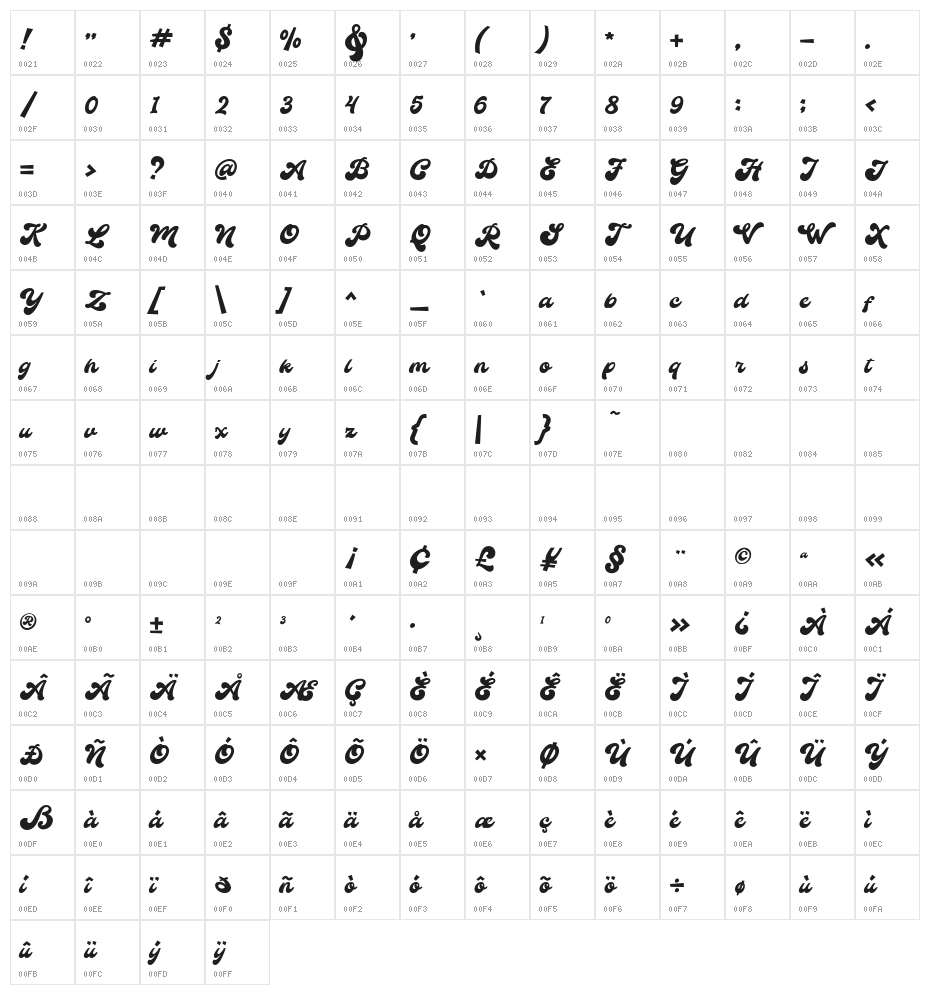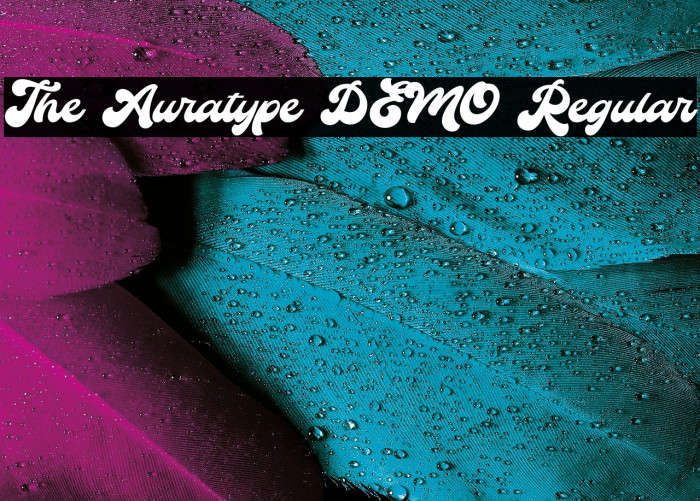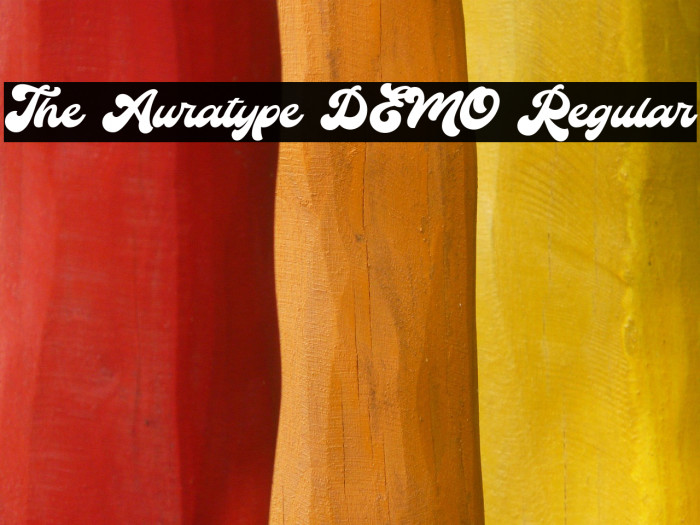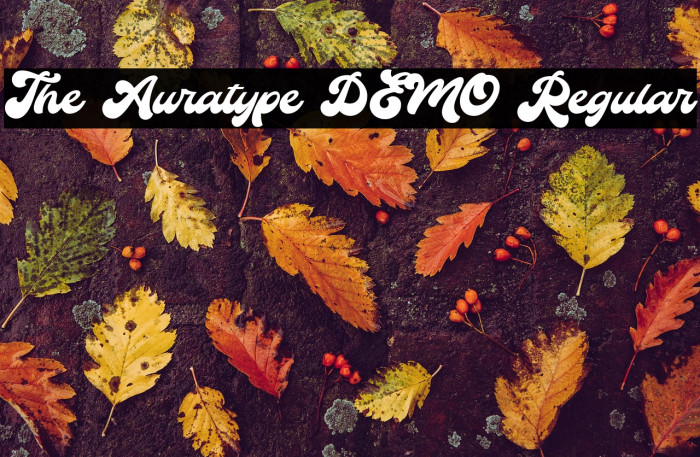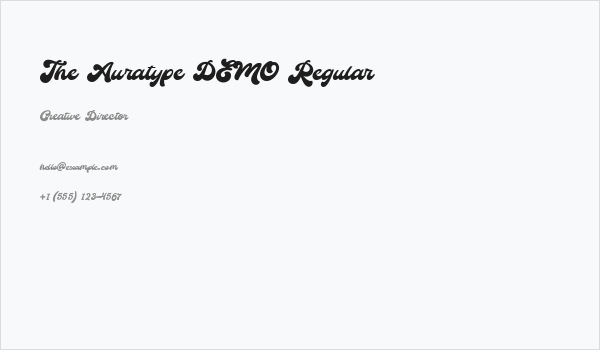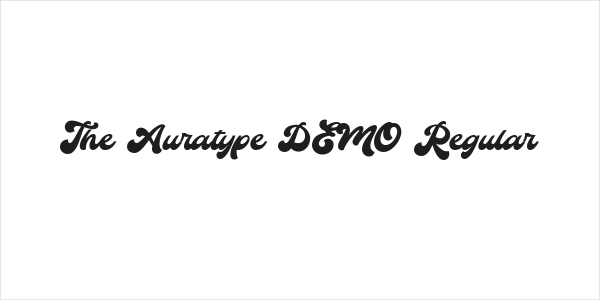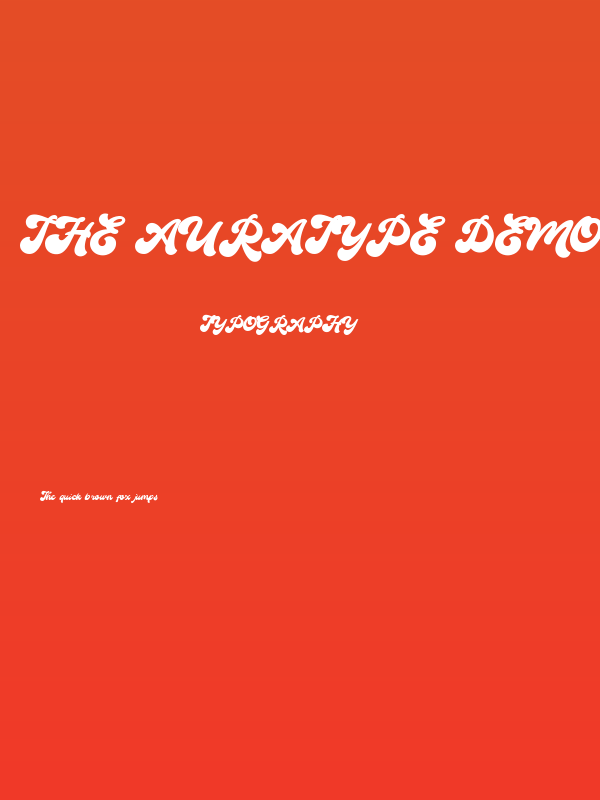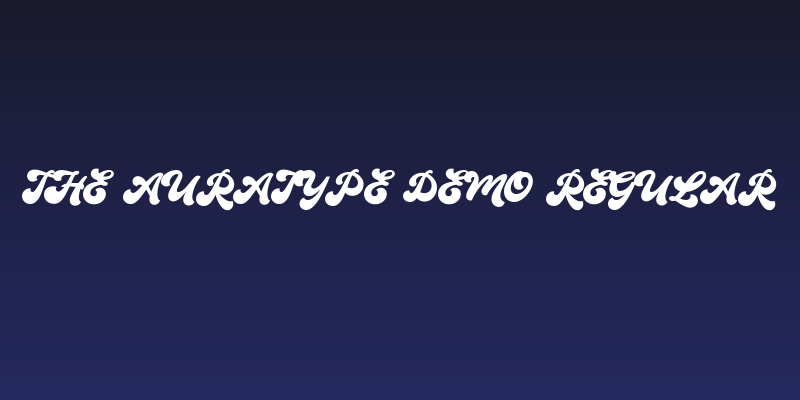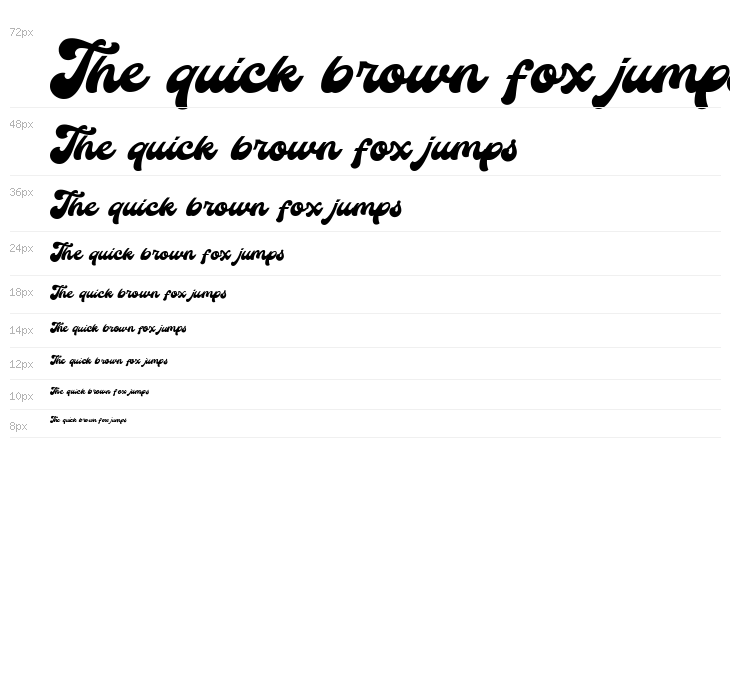
The Auratype DEMO Regular Font
The Auratype DEMO Regular Description
This font features a bold, cursive style with a strong emphasis on fluidity and elegance. The characters are interconnected, creating a seamless flow that is both dynamic and visually appealing. The uppercase letters are particularly ornate, with exaggerated curves and loops that add a touch of sophistication. The lowercase letters maintain the same fluidity, with a slightly more subdued design that complements the uppercase characters. The numbers and special characters are consistent with the overall style, ensuring a cohesive look across all text. This font is ideal for projects that require a touch of elegance and flair, such as invitations, branding, and decorative headlines.
The Auratype is retro and classic typeface who inspired by the 60s - 80s designs with more unique explored style like swosh and alternate character. This font made from manual sketch with many many scratch then finished to font. Make your designs project
| Proposed Projects | Ideal for invitations, branding, decorative headlines, and elegant designs. |